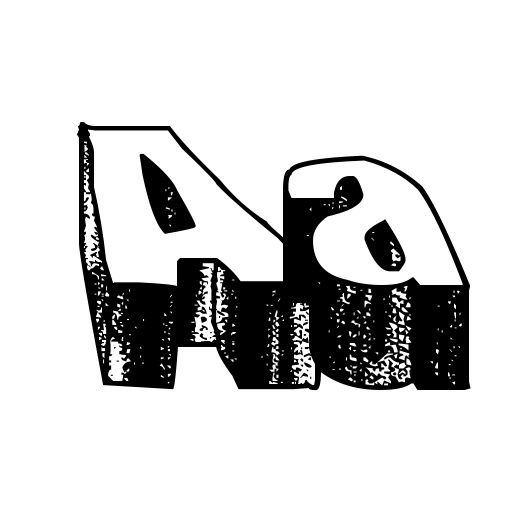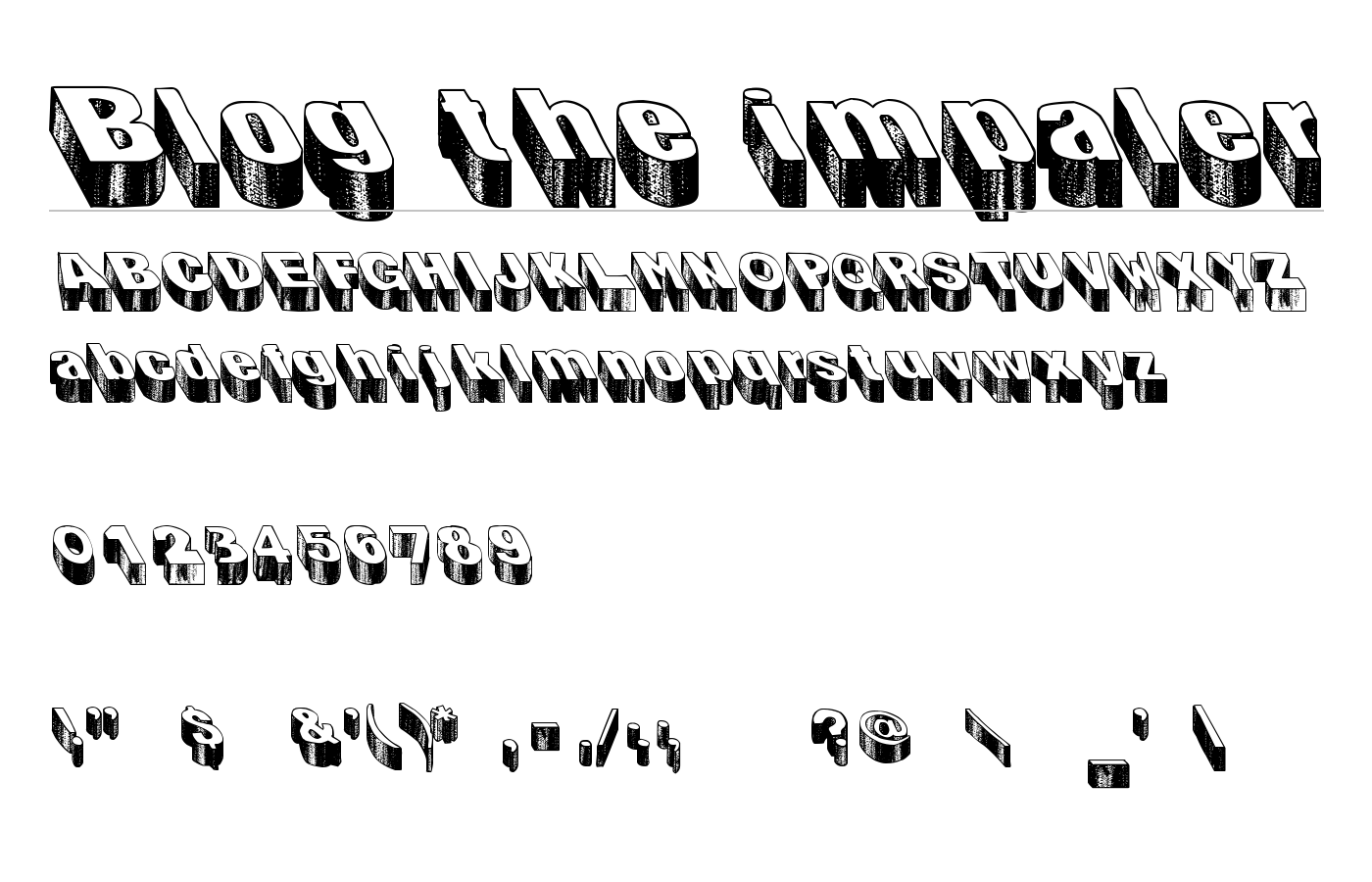
Blog the impaler is a bold, playful sans serif font with a distinctive 3D shadow effect that gives it a strong, dynamic presence. Its chunky letterforms with high x-height and unique textured shading create a sense of fun and energy, making it ideal for attention-grabbing headlines, posters, and branding with a quirky or retro vibe. This font works best where impact and personality are needed, adding visual depth and character to various creative projects.
About Blog the impaler Font